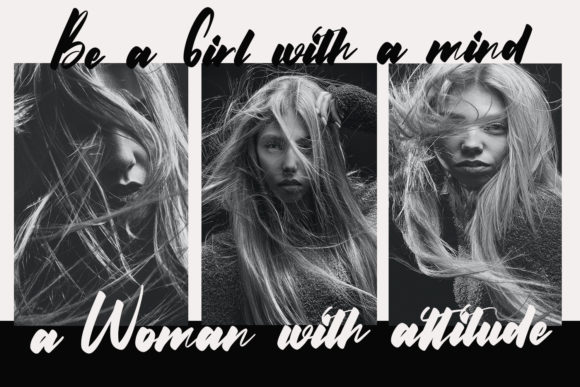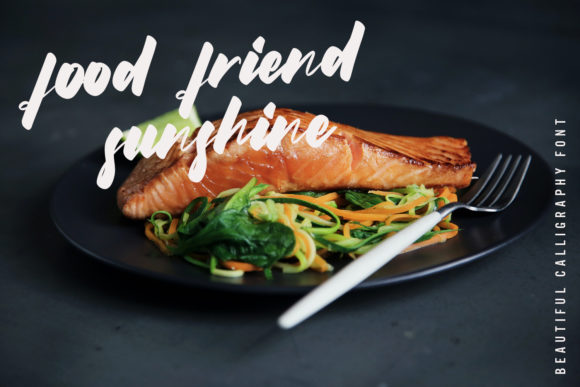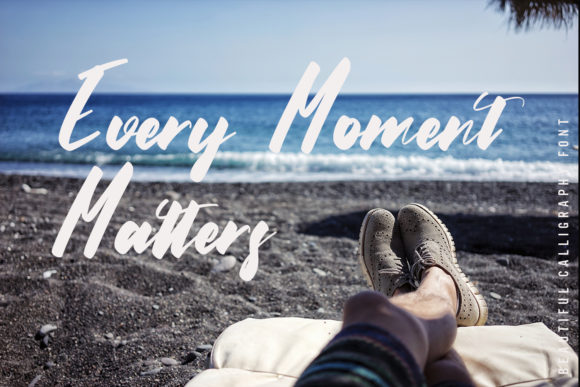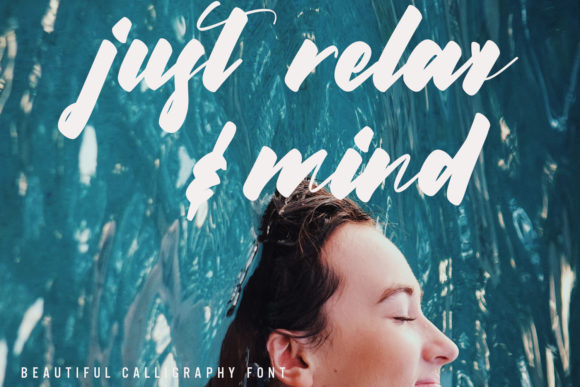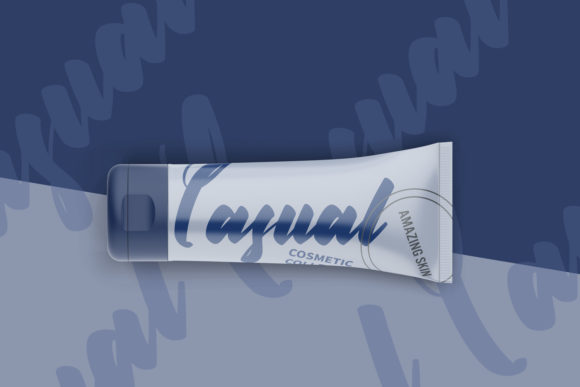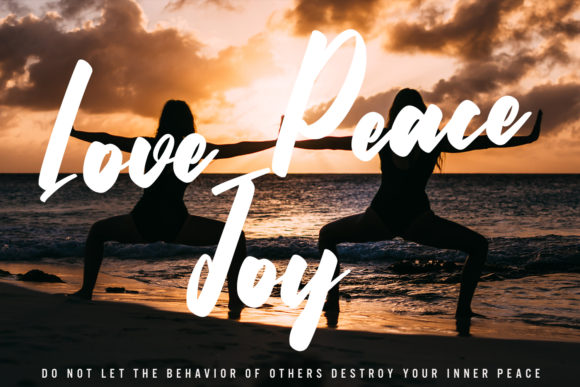
Introducing Brookelyn Font: The Perfect Blend of Bold and Casual
Are you tired of using the same old fonts for your design projects? Look no further! Brookelyn Font is here to shake things up with its unique blend of bold and casual handwritten style. In this article, we’ll dive into the world of Brookelyn Font and explore its features, uses, and benefits for designers and crafters.
What is Brookelyn Font?
Brookelyn Font is a bold and casual handwritten font designed to add a special touch to your design projects. Its unique style is perfect for making a statement, whether you’re working on a logo, branding materials, social media graphics, or any other creative project. With Brookelyn Font, you can add a personal and playful touch to your designs that will set them apart from the rest.
Key Features of Brookelyn Font
- Bold and Casual Style: Brookelyn Font boasts a bold and casual handwritten style that’s perfect for making a statement.
- Highly Versatile: This font is suitable for a wide range of design projects, from logos and branding materials to social media graphics and more.
- Easy to Read: Despite its bold style, Brookelyn Font is easy to read, making it perfect for body text and headlines.
- Unique Character Set: Brookelyn Font comes with a unique character set, including uppercase and lowercase letters, numbers, and special characters.
Uses of Brookelyn Font
Brookelyn Font is an incredibly versatile font that can be used for a wide range of design projects. Here are some ideas to get you started:
- Logo Design: Use Brookelyn Font to create a bold and eye-catching logo that will make your brand stand out.
- Branding Materials: Add a personal touch to your branding materials, such as business cards, brochures, and letterheads.
- Social Media Graphics: Use Brookelyn Font to create engaging social media graphics that will grab the attention of your followers.
- Packaging Design: Add a playful touch to your packaging design with Brookelyn Font.
Benefits of Using Brookelyn Font
So, why should you choose Brookelyn Font for your design projects? Here are some benefits to consider:
- Stand Out from the Crowd: Brookelyn Font is a unique and eye-catching font that will help your designs stand out from the crowd.
- Personal Touch: Add a personal and playful touch to your designs with Brookelyn Font.
- Easy to Use: Brookelyn Font is easy to install and use, making it perfect for designers of all levels.
- High-Quality Design: Brookelyn Font is designed with high-quality and precision, ensuring that your designs look professional and polished.
Tips for Using Brookelyn Font
Here are some tips for using Brookelyn Font in your design projects:
- Use it Sparingly: Brookelyn Font is a bold font, so use it sparingly to avoid overwhelming your design.
- Pair it with Other Fonts: Pair Brookelyn Font with other fonts to create a unique and interesting contrast.
- Experiment with Colors: Experiment with different colors to find the perfect combination that works with Brookelyn Font.
In conclusion, Brookelyn Font is a bold and casual handwritten font that’s perfect for designers and crafters looking to add a special touch to their design projects. With its unique style, versatility, and ease of use, Brookelyn Font is an excellent choice for a wide range of design projects. So, why not give it a try and see how it can elevate your designs?